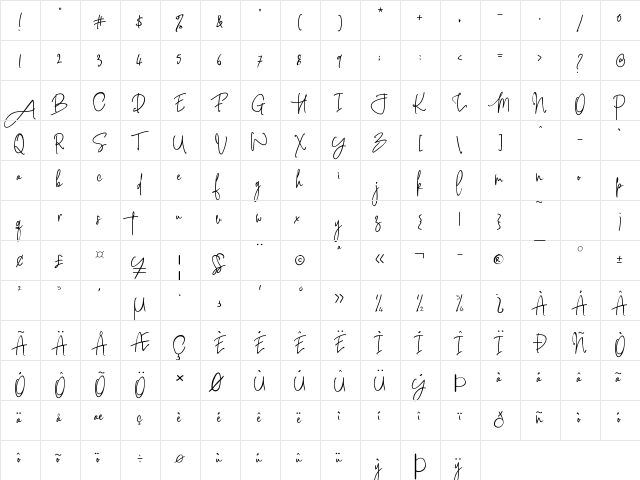
Pink Script Regular
| Designer | Alde Design 2018 |
Design Context for Pink Script Typeface
Pink Script flows with the natural rhythm of handwritten lettering, making it ideal for designs that call for warmth and personal expression.
Font Pairing: Combine Pink Script with a simple geometric sans for maximum contrast — the tension between flowing curves and clean structure is a classic typographic pairing.
Pro Tip: Use Pink Script for short runs of text — names, titles, or taglines. Extended body copy in script faces tires the eye quickly.